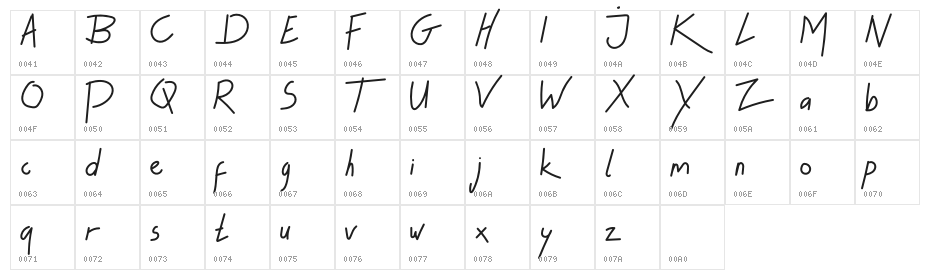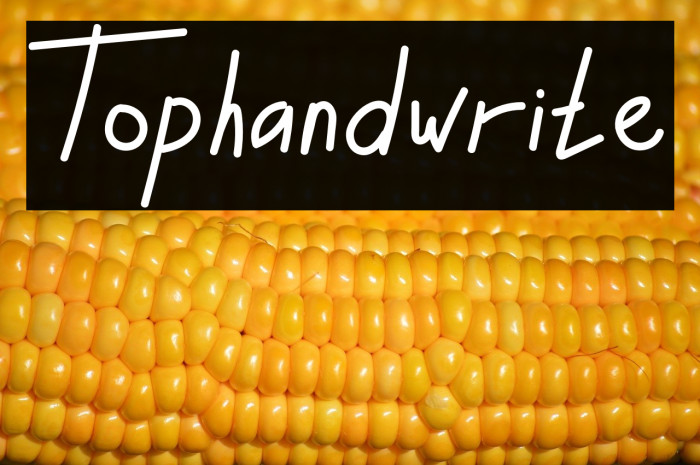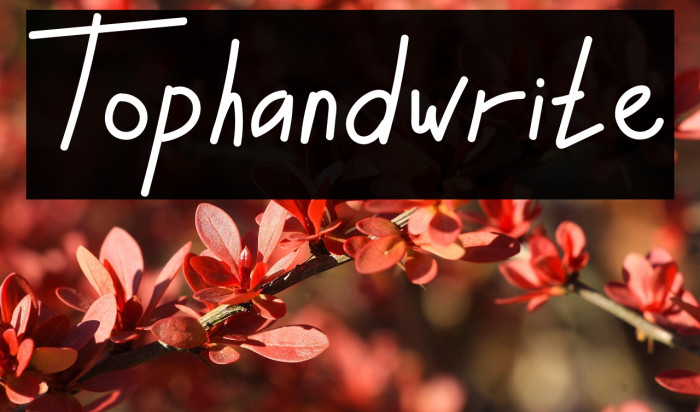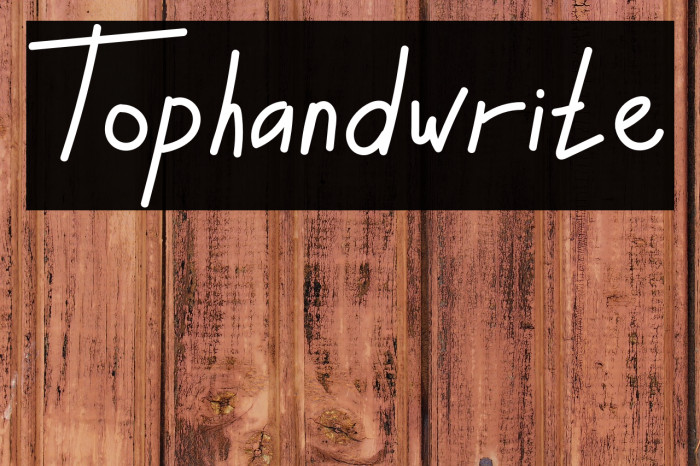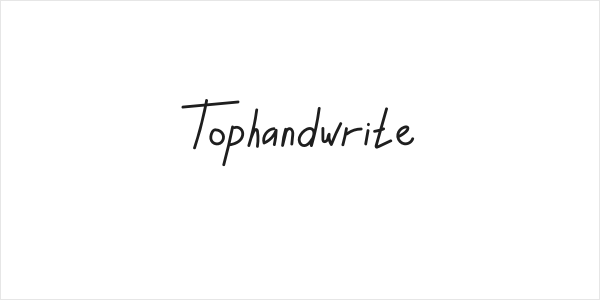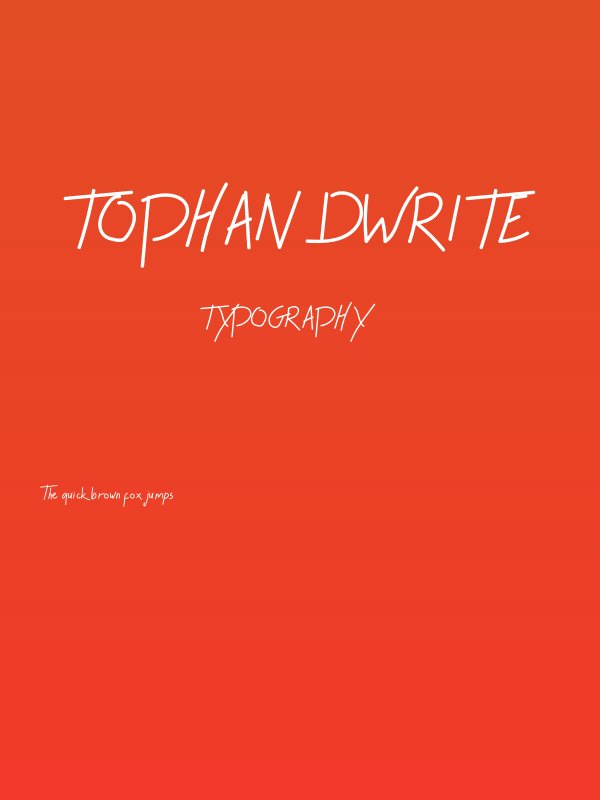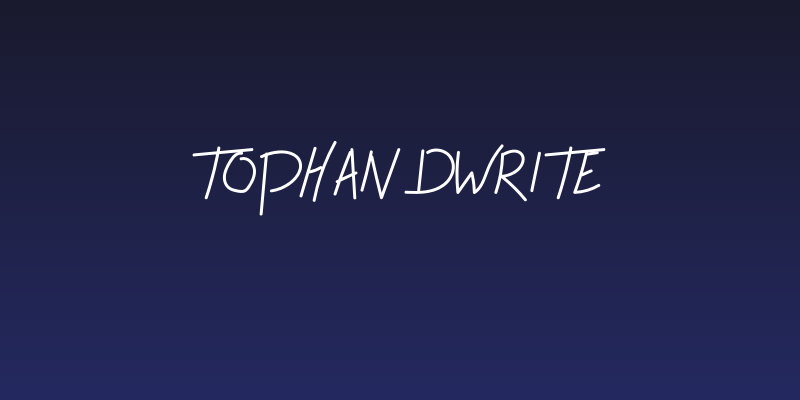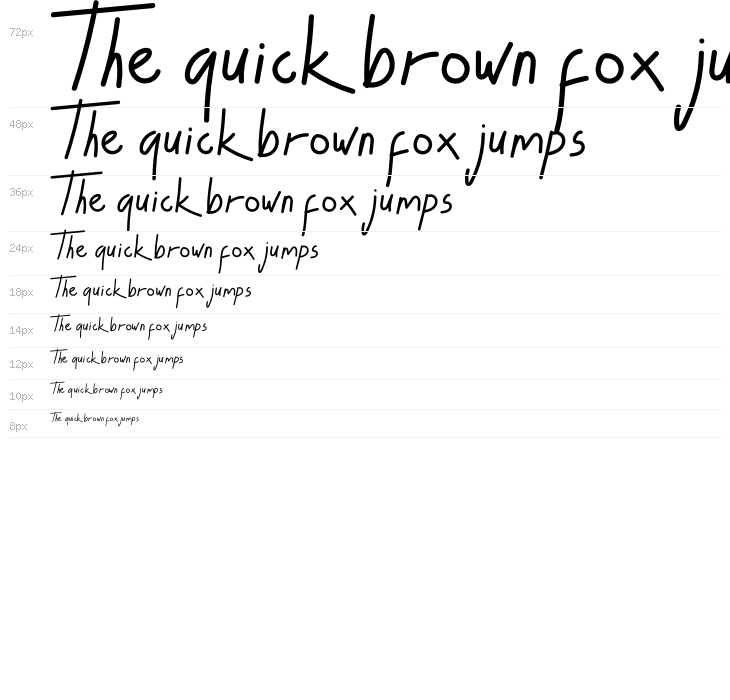
Tophandwrite Font
Tophandwrite Description
This font exhibits a playful and casual handwritten style, characterized by its irregular strokes and informal appearance. The uppercase letters are tall and slightly slanted, giving a dynamic and lively feel. The lowercase letters maintain a consistent flow, with some letters like 'f' and 'g' having distinctive loops and curves. The numbers are straightforward, matching the overall handwritten aesthetic. Special characters are integrated seamlessly, maintaining the font's cohesive look. This font's organic and personal touch makes it ideal for projects that require a human element.
| Overall Style | Casual |
| Use Case | Logos, Headlines, Creative projects |
| Proposed Projects | Ideal for greeting cards, personal notes, informal invitations, and creative projects that require a personal touch. |